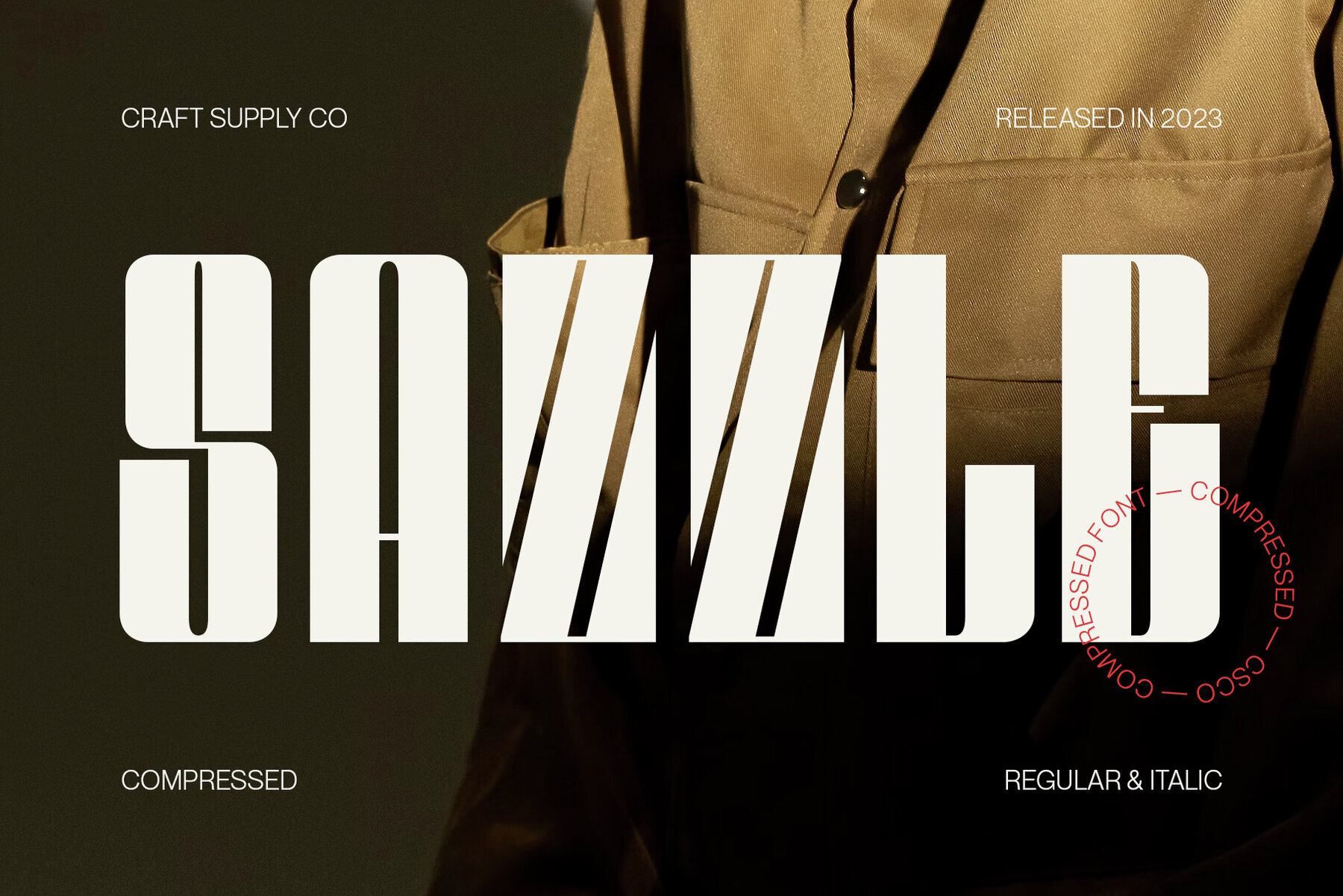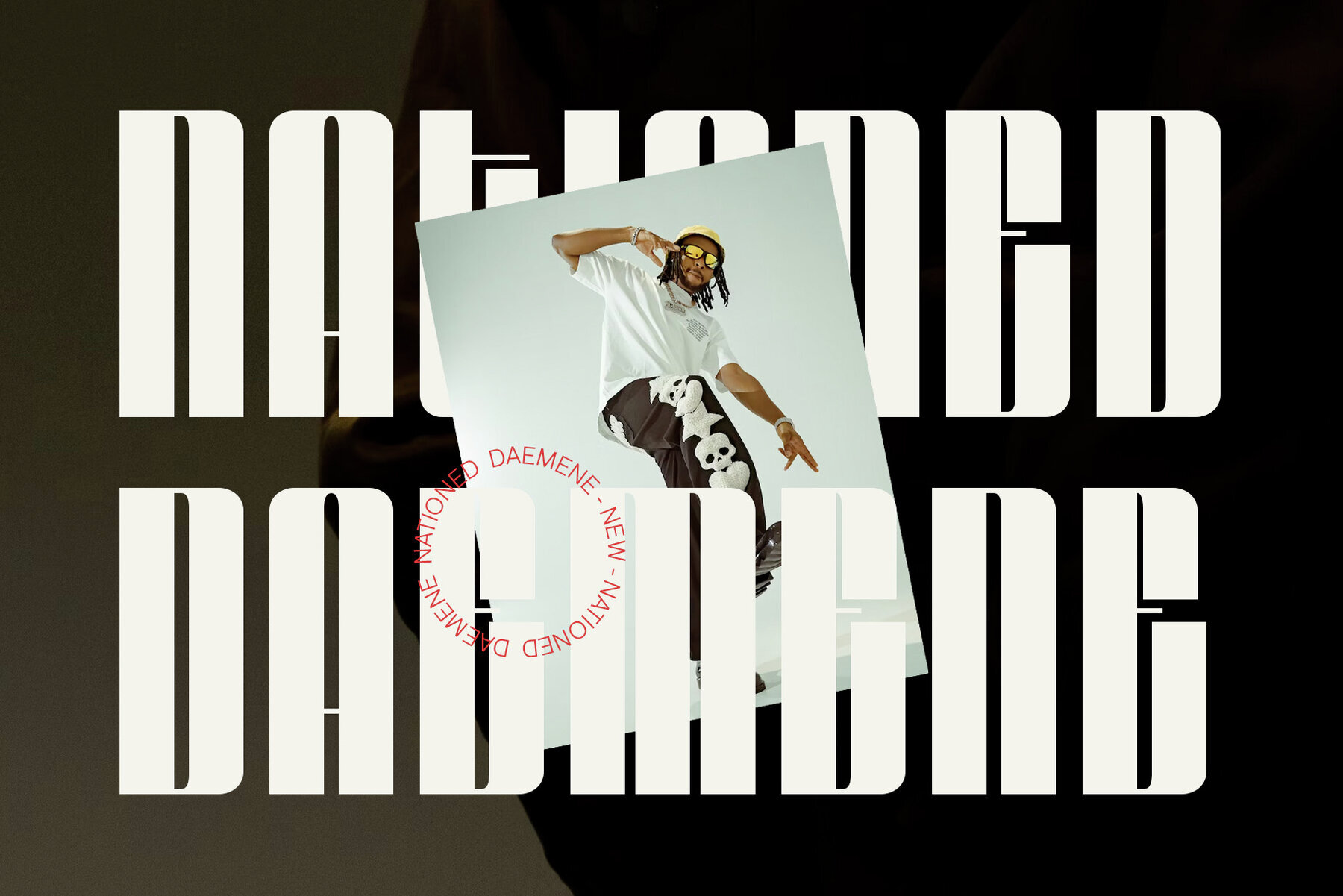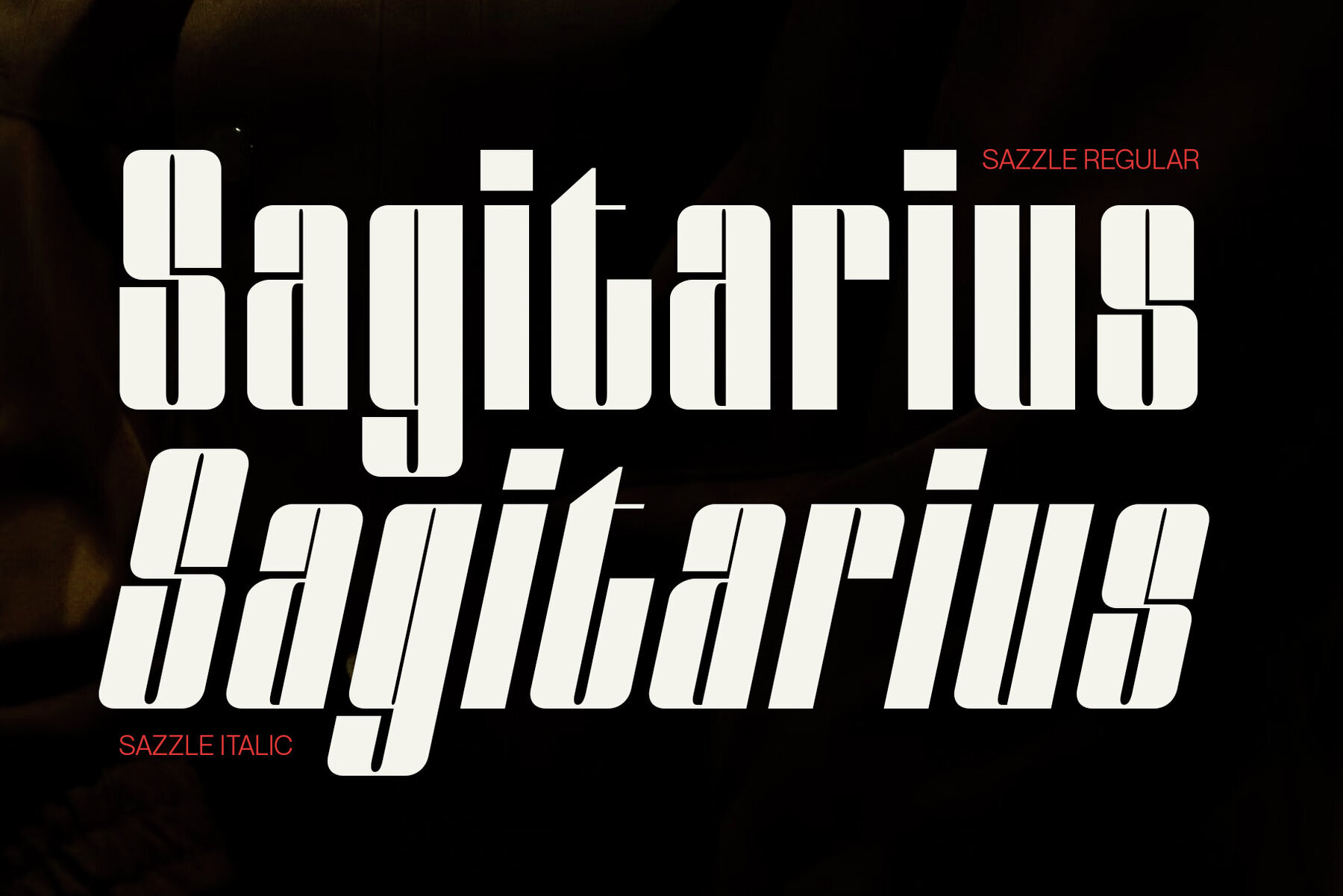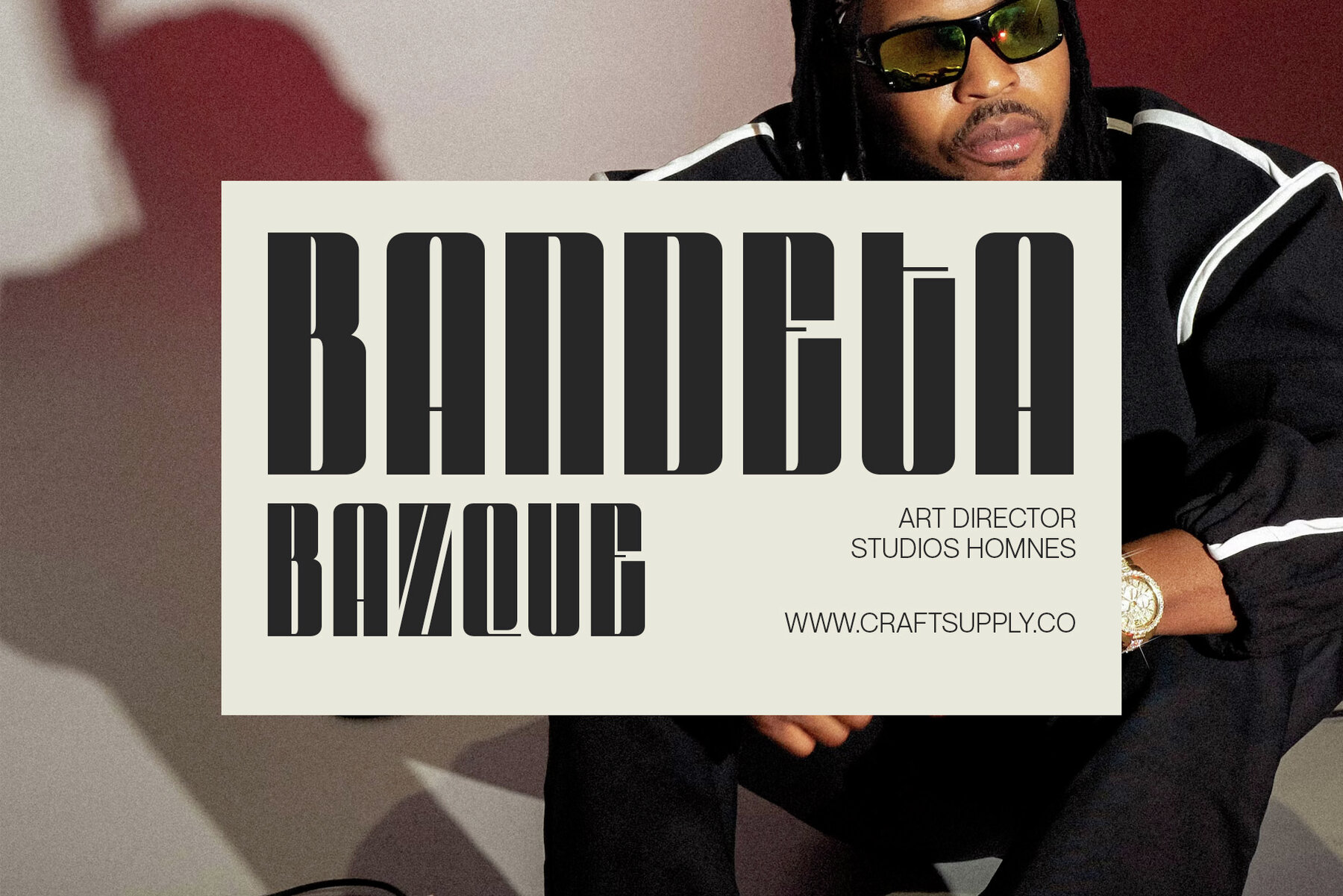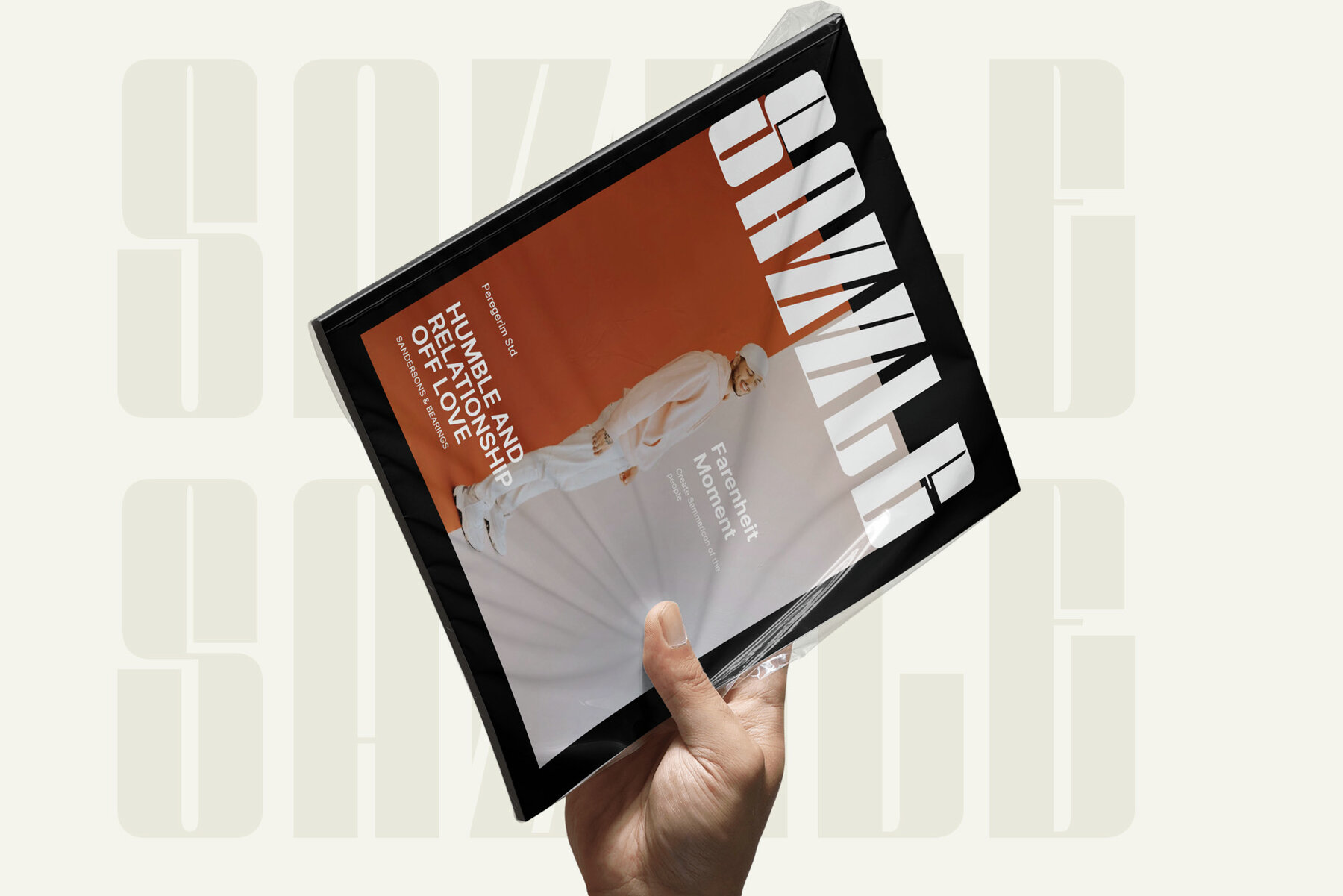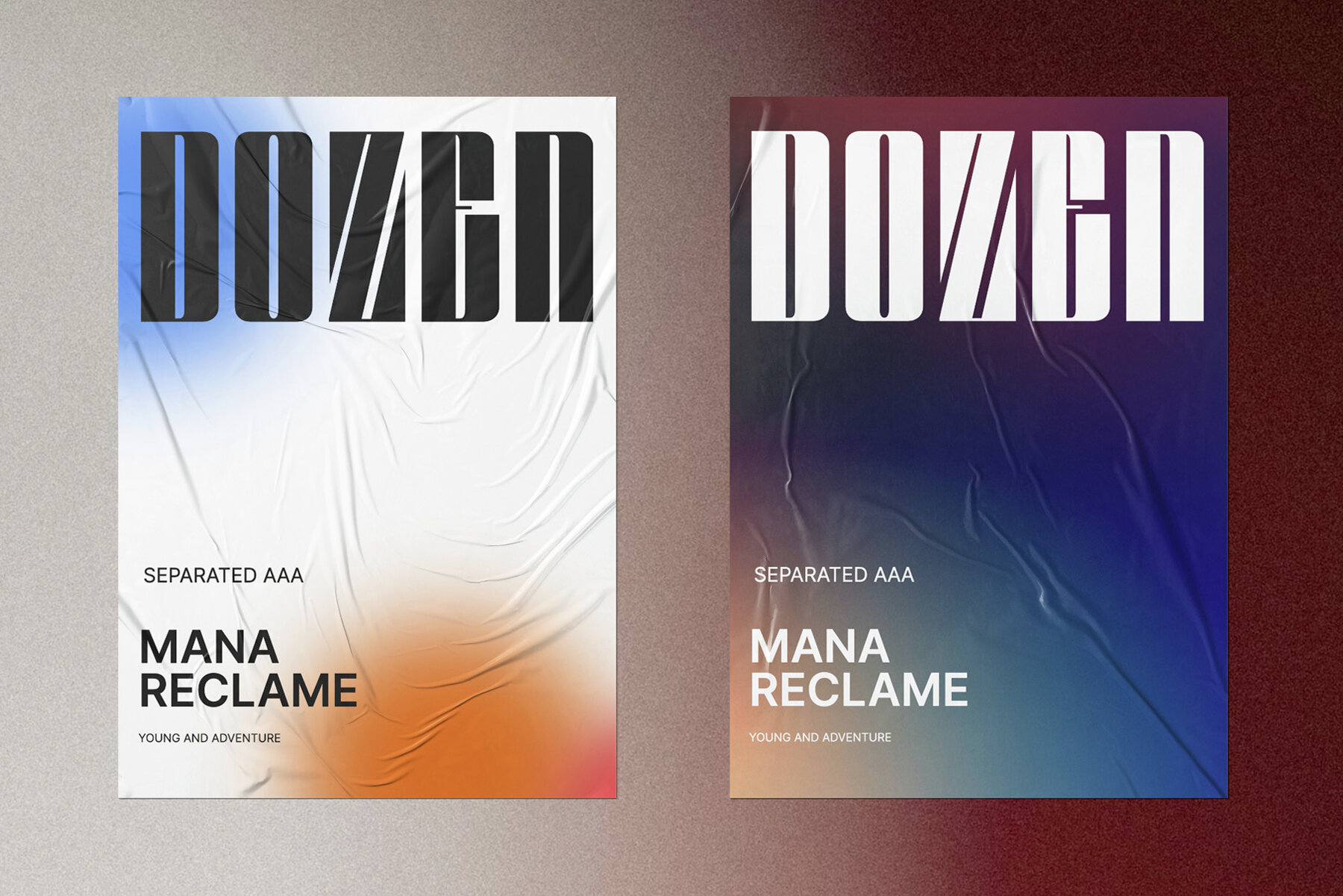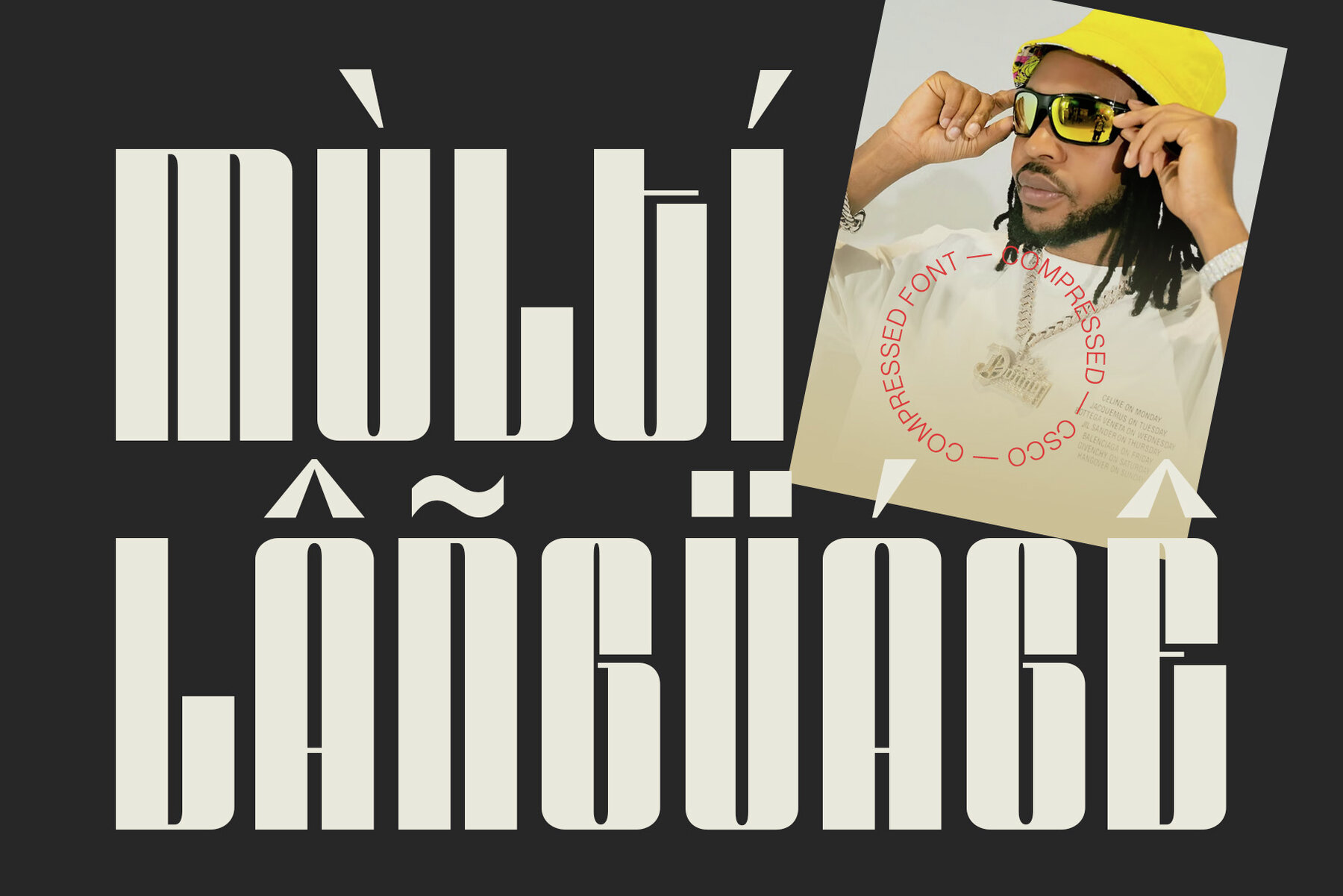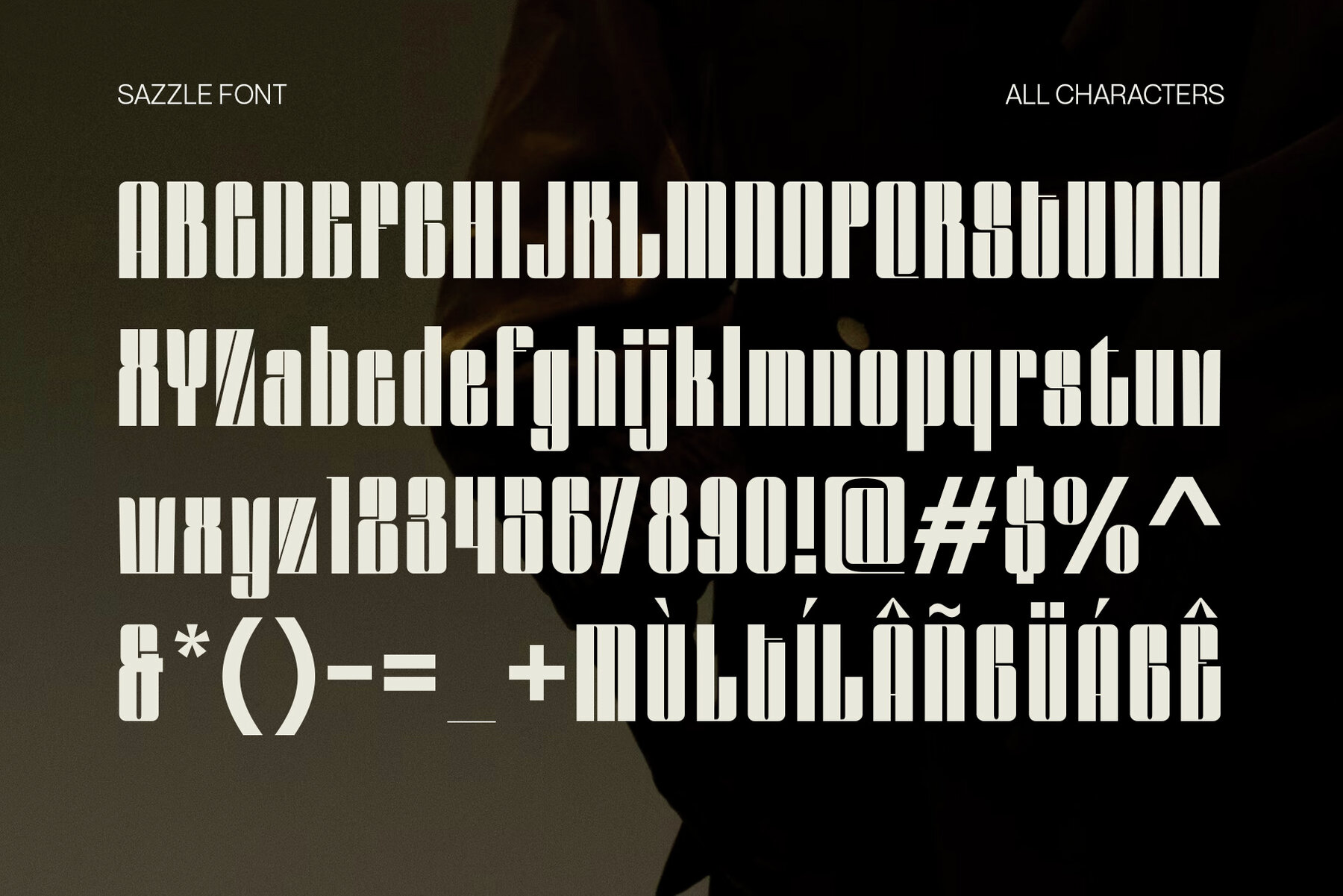
Sazzle Font
Introducing Sazzle - Compressed Sans Serif: A sleek typeface that demands attention with its tightly compressed design and minimal white space. With its clean lines and modern appeal, Sazzle adds a touch of sophistication to your projects, making an unignorable, bold statement. What you get: Features: